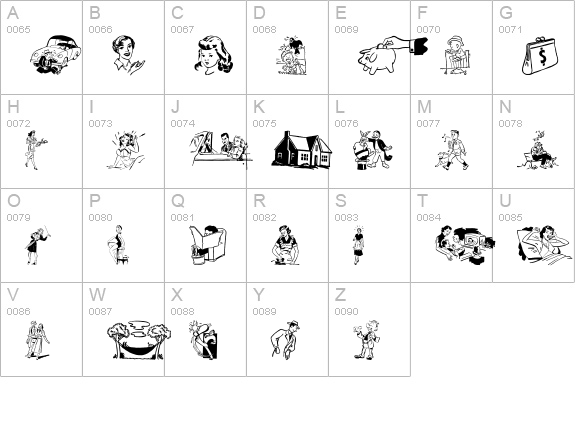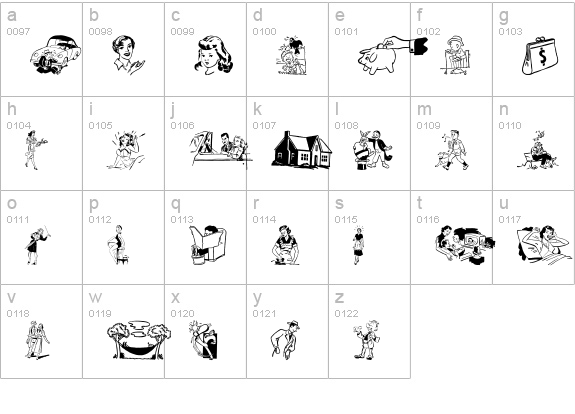
Cobb Shinn Stock Cuts V font is a unique and eye-catching typeface that brings a touch of vintage charm to any design project. With its bold and striking appearance, this font is perfect for creating attention-grabbing headlines, posters, and branding materials. The intricate details and cut-out style of the letters give a playful and artistic feel to your text. The best part? Cobb Shinn Stock Cuts V font is completely free to download at FontsMarket.com. Whether you're a professional designer looking to add a creative twist to your work or just someone who appreciates high-quality fonts, this font is a must-have in your collection. Don't miss out on the opportunity to enhance your designs with this stunning and versatile typeface that will surely make a lasting impression.